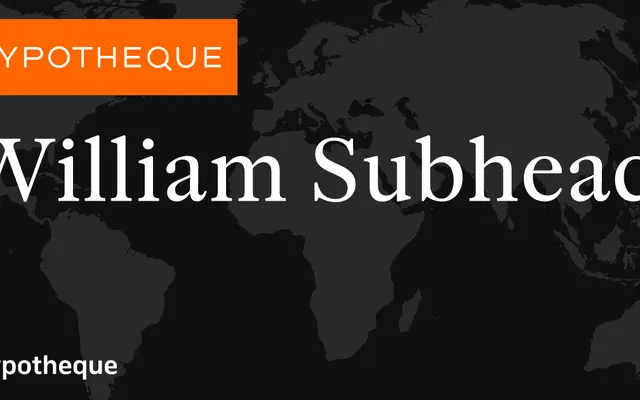
William Subhead specimen from Typotheque
A subhead-optimised optical cut from Typotheque's William system, a classical serif family engineered across three optical sizes.
William Subhead is one of three size-specific cuts in Typotheque's William family, sitting between the high-contrast Display and the robust Text variant. The family spans Regular and Bold weights, each with a matching italic, and a variable font is also available for the Subhead cut. The system's multi-optical structure reflects a rigorous approach to classical serif design, tuned for the different optical conditions of display, intermediate and body settings.
William is a multi-optical-size serif system with distinct Display, Subhead and Text cuts; the Subhead optical size sits between display contrast and text legibility, characteristic of a transitional or classical serif design.